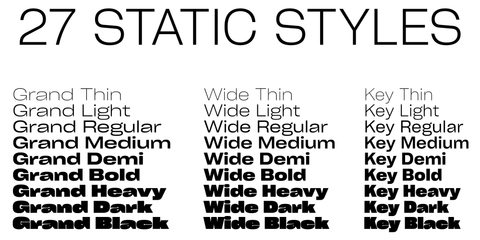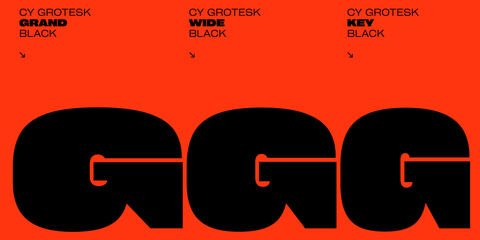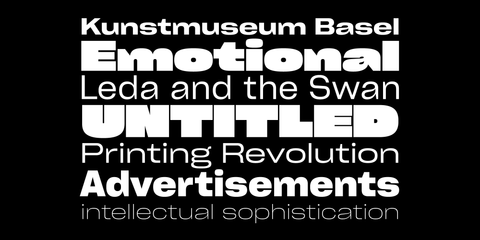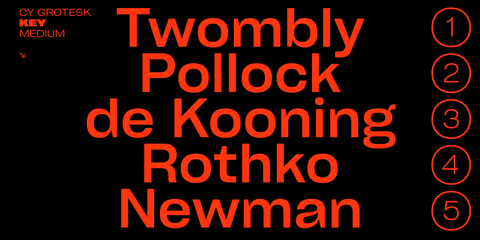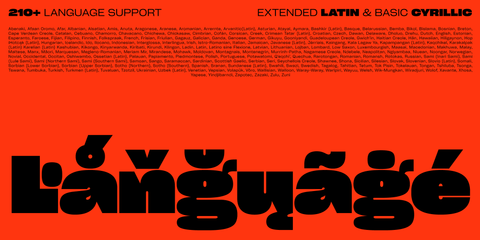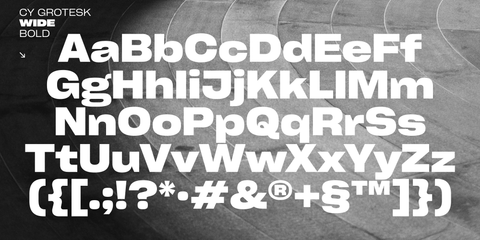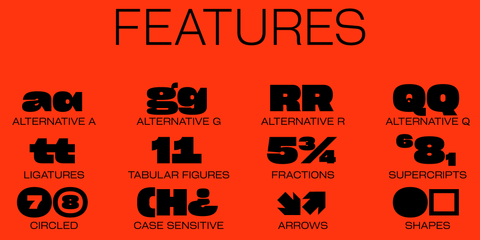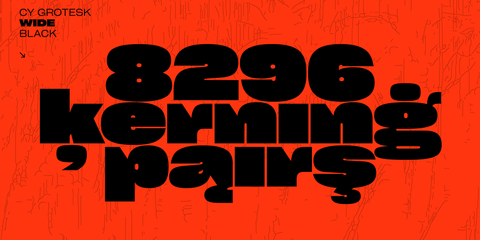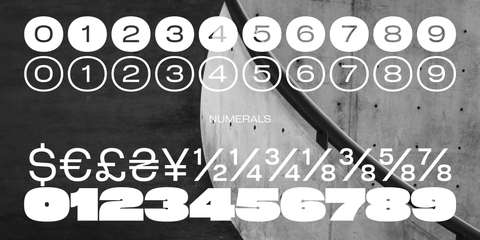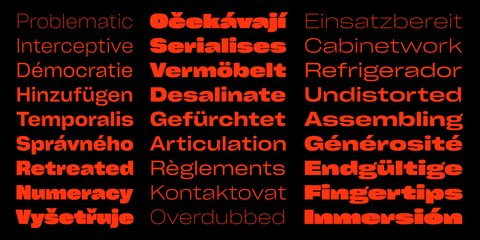
cy Grotesk Font 4 Variables
CY Grotesk Font, improved kerning and symbols
CY Grotesk Font, thin, light, regular, medium, Demi, bold, heavy, dark, black
CY Grotesk Font Sexy Symbols
CY Grotesk Font Sexy Kerning Pairs
CY Grotesk Font weights in use
CY Grotesk Font Wide Bold Typeface
CY Grotesk Font wide medium Typeface
CY Grotesk Font Numbers and Numerals
CY Grotesk Font Alternative Features Symbols Typeface
CY Grotesk Font Key medium Typeface
Maksym Kobuzan
Cy Grotesk Variable Font Family
Cy Grotesk Full Variable Font Family – A Modern Grotesque with Historic Edge
Introducing Cy Grotesk, a display typeface that merges the clarity of mid-20th-century European neo-grotesques with the lively expressiveness of 19th-century grotesques. Designed by Maksym Kobuzan, Cy Grotesk stands out with its eccentric character, sharp angled spurs, and unique wedge incisions between the bowl and stem. Its fluid curves and tight apertures create a special rhythm, making this font family a perfect blend of elegance and functionality.
With 27 styles—ranging from delicate thin to bold black—and an adjustable variable font with 2 axes (width and weight), Cy Grotesk is built like a multi-functional workhorse, ready to tackle anything from eye-catching headlines to sleek body text. This font offers a 682-glyph set, including an extended Latin alphabet and basic Cyrillic, making it an excellent choice for multilingual projects.
Why Cy Grotesk font is the modern creative’s best friend:
• 682 glyphs—providing full language support, covering 210+ languages (Latin Extended, Cyrillic).
• 27 versatile styles—for any design need—adjust from ultra-thin to daring black, and everything in between.
• Advanced OpenType features—stylistic sets, tabular numerals, ligatures, arrows, and case-sensitive forms for professional-grade typography.
Whether you’re crafting bold digital designs or building timeless print projects, Cy Grotesk adds an eccentric yet polished feel to your work. It's more than just a typeface—it's a design tool with serious personality.